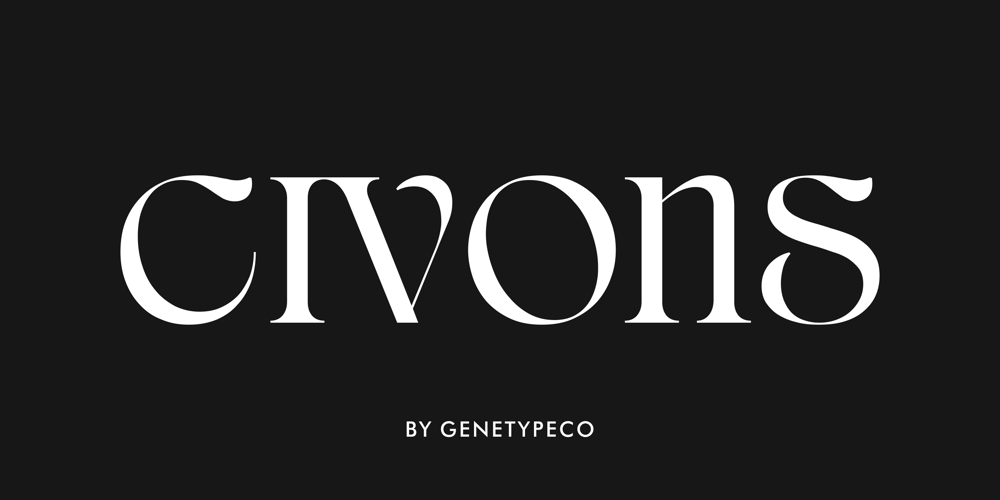
Civons
Civons font
Civons Font Family was designed by Bagus Arya and published by Genetype. Civons contains 1 styles and family package options. Introducing Civons Serif Display FontA perfect fusion of classic charm and modern allure. Ideal for branding and editorial projects, it effortlessly combines traditional serifs with a contemporary touch, radiating sophistication and uniqueness. So why stop at classic and boring serif fonts when you can add fun and uniqueness with this serif display font? give it a try and you’ll love it!Enjoy the font, feel free to comment or feedback, send me PM or email.Thank you!